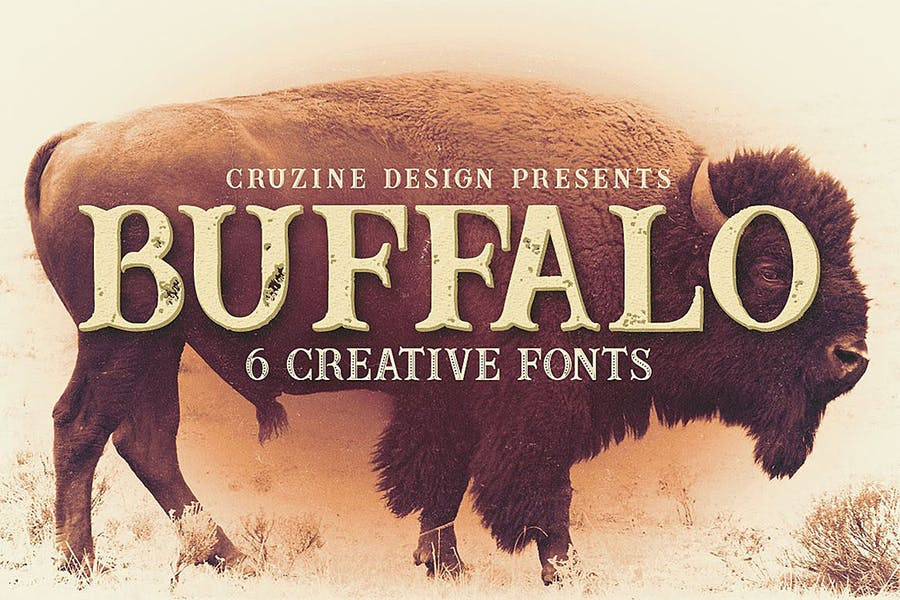
Buffalo Typeface Font
Buffalo Typeface Font is perfect for Western restaurant branding, American frontier marketing, rugged outdoor gear packaging, steakhouse signage, cowboy-themed events, rustic lodge communications, buffalo ranch advertising, and authentic Western lifestyle campaigns.
What makes Buffalo Typeface Font exciting is its frontier strength that embodies the untamed power and rugged authenticity of the American West with prairie durability and frontier spirit. The font features bold letterforms with weathered proportions and frontier character that evoke cattle drives, wide open plains, and the enduring strength of Western heritage and frontier determination. Its distinctive Western styling and rugged appeal communicate strength, authenticity, and frontier resilience, making every message feel forged on the frontier and touched by the powerful spirit of American Western tradition and prairie independence.
The Buffalo Typeface Font family includes regular weight with uppercase and lowercase letters, numerals, punctuation marks, and special characters. Premium versions often feature weathered alternates and Western elements that enhance the frontier, rugged aesthetic perfect for Western and outdoor applications.
This powerful frontier typeface brings instant authenticity and Western credibility to any frontier-themed project. Buffalo Typeface Font Free Download delivers exceptional results for Western businesses and outdoor organizations seeking to communicate frontier strength, American heritage, and rugged authenticity to Western enthusiasts and outdoor adventurers.
The rugged character of Buffalo Typeface Font makes it particularly valuable for Western restaurants, outdoor equipment companies, and American heritage tourism businesses. Its excellent readability ensures Western messaging and frontier communications remain clear while maintaining the distinctive frontier aesthetic that appeals to customers seeking authentic Western experiences and rugged American tradition.
Western heritage marketers appreciate how Buffalo Typeface Font effortlessly conveys frontier authenticity and American strength. The font's bold proportions and weathered details create powerful brand materials that establish connections with audiences who value Western heritage, frontier spirit, and the rugged beauty of American frontier culture and prairie independence.
The versatile strength of this typeface extends to ranch tourism, Western entertainment, and American heritage education where frontier authenticity enhances cultural credibility and Western appeal. Buffalo Typeface Font Free Download provides creative professionals with an essential tool for developing memorable, frontier-driven designs that resonate with audiences who embrace Western heritage, frontier strength, and the powerful authenticity of American buffalo country in their Western and outdoor experiences.